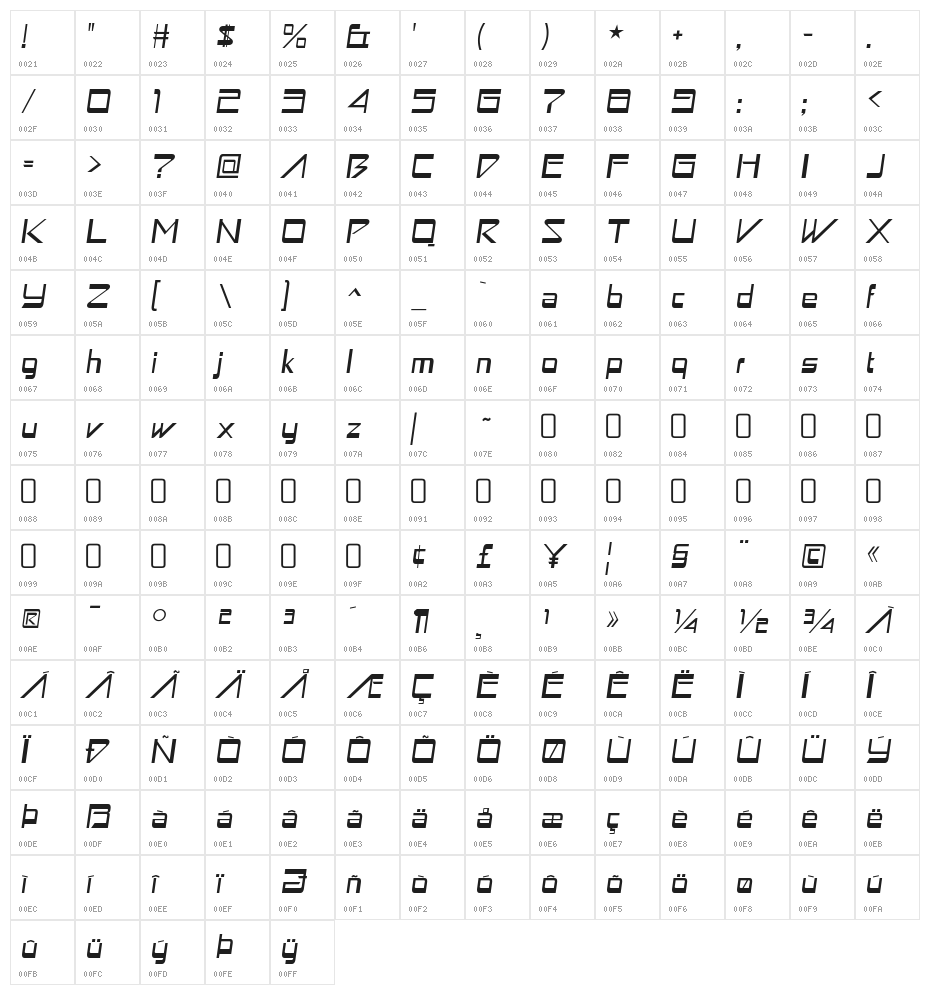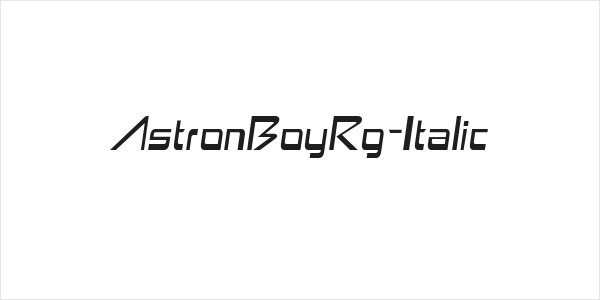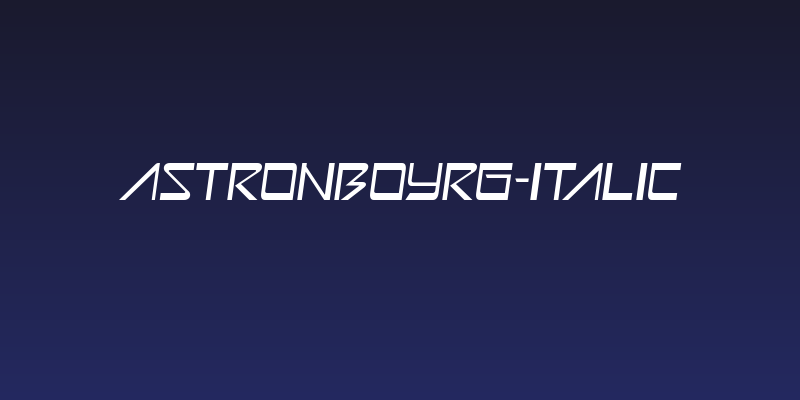
AstronBoyRg-Italic Font
AstronBoyRg-Italic Description
This font features a futuristic and angular design, characterized by its italicized and geometric letterforms. The uppercase letters have sharp, distinct angles, while the lowercase letters maintain a more rounded yet still angular appearance. The numbers follow the same stylistic cues, offering a cohesive look across all characters. The special characters are designed to match the overall aesthetic, providing a seamless integration. The font's style is bold and dynamic, making it suitable for projects that require a modern and tech-inspired look.
| Proposed Projects | Ideal for technology branding, sci-fi themed designs, video game titles, and modern advertising. |